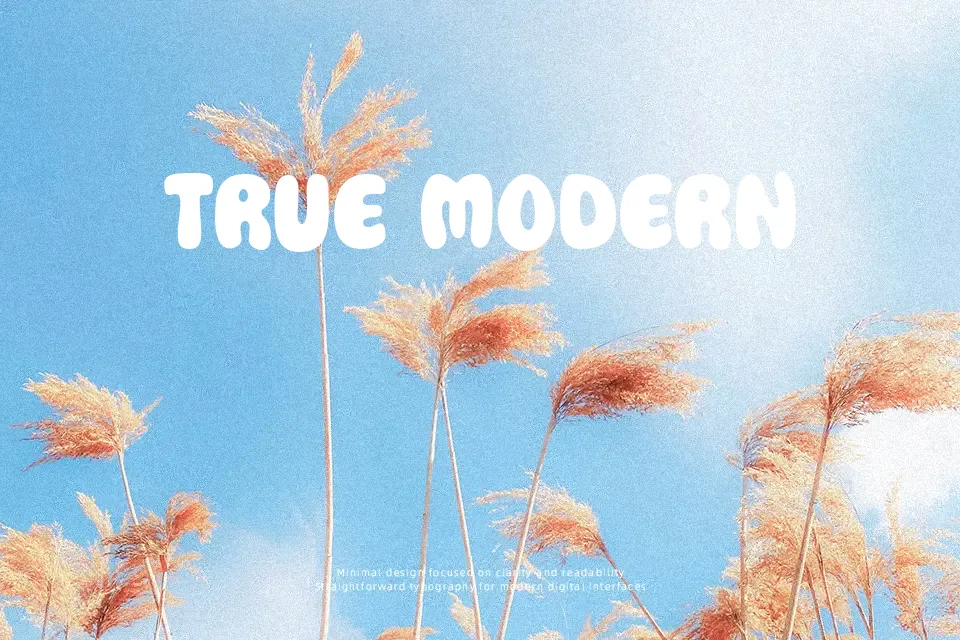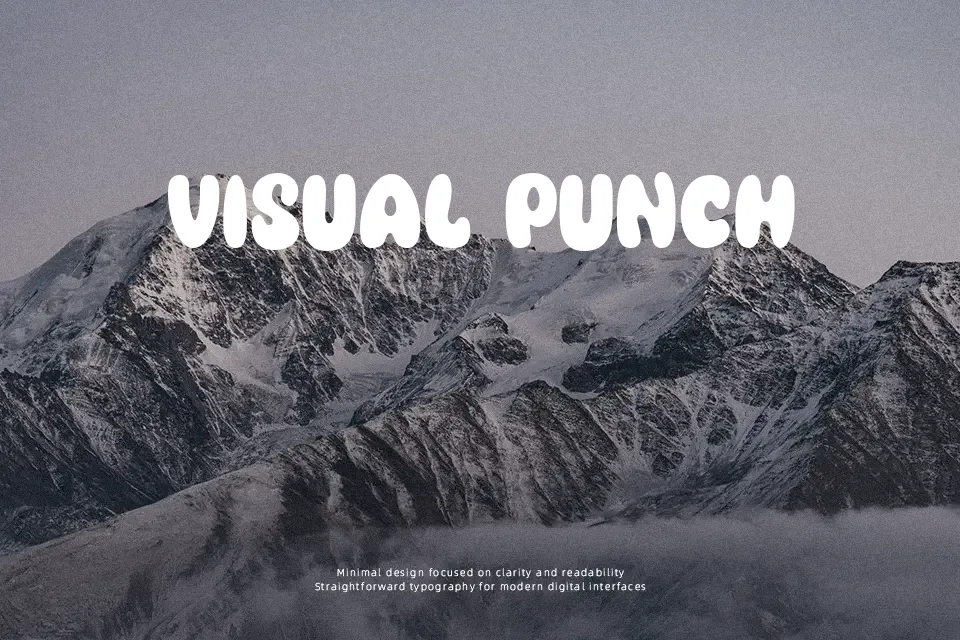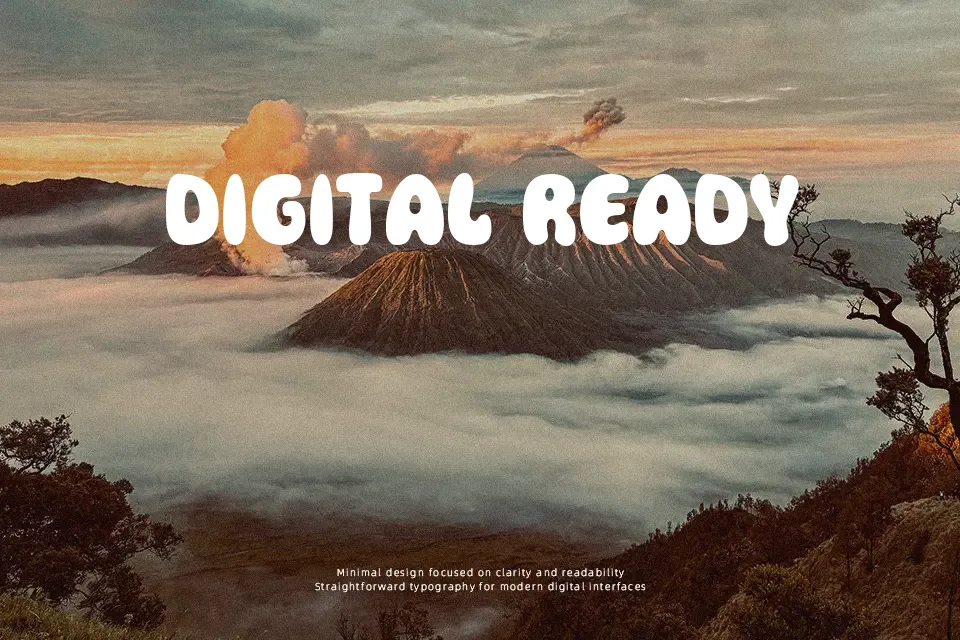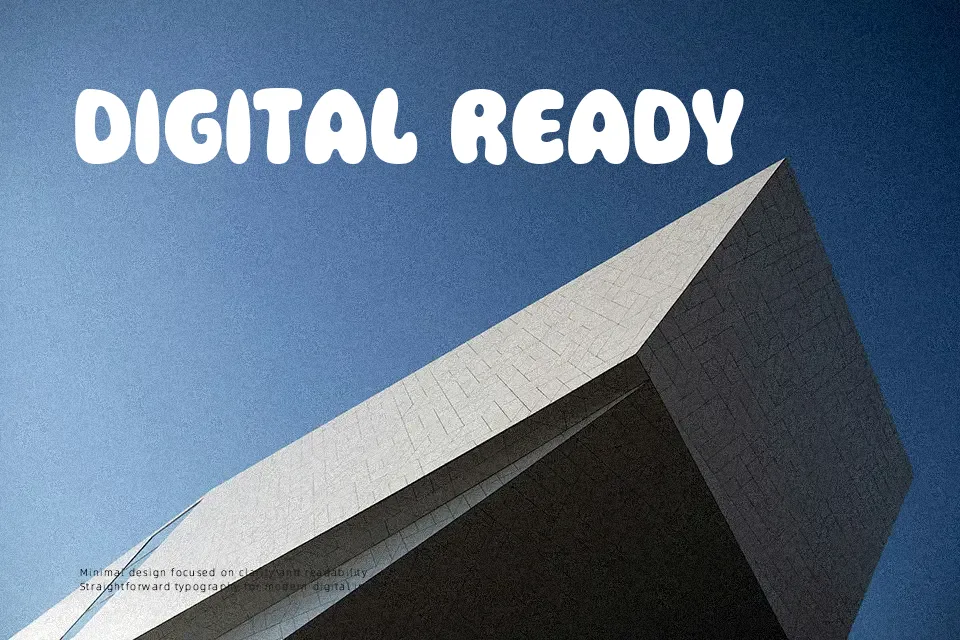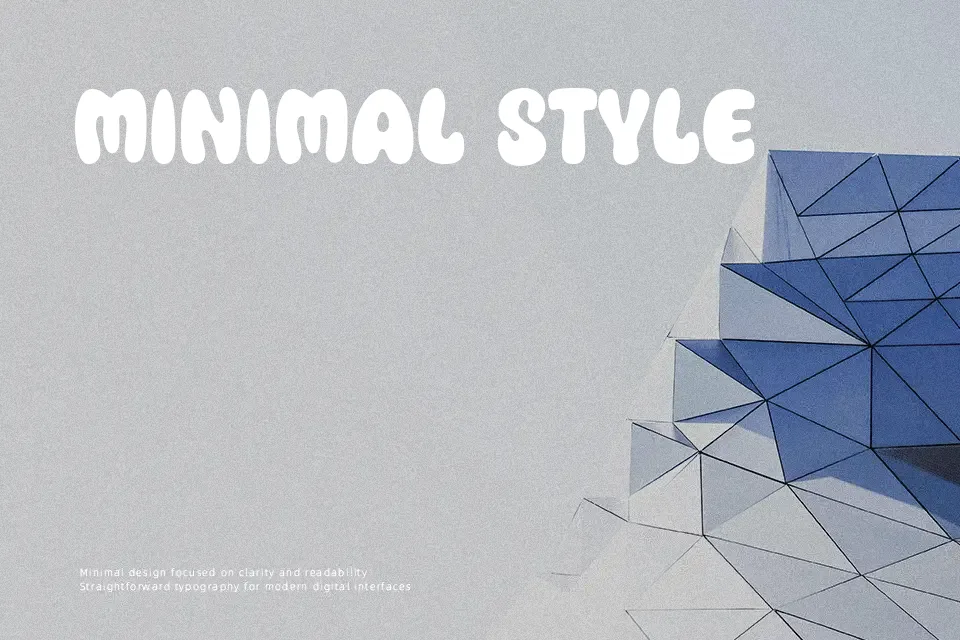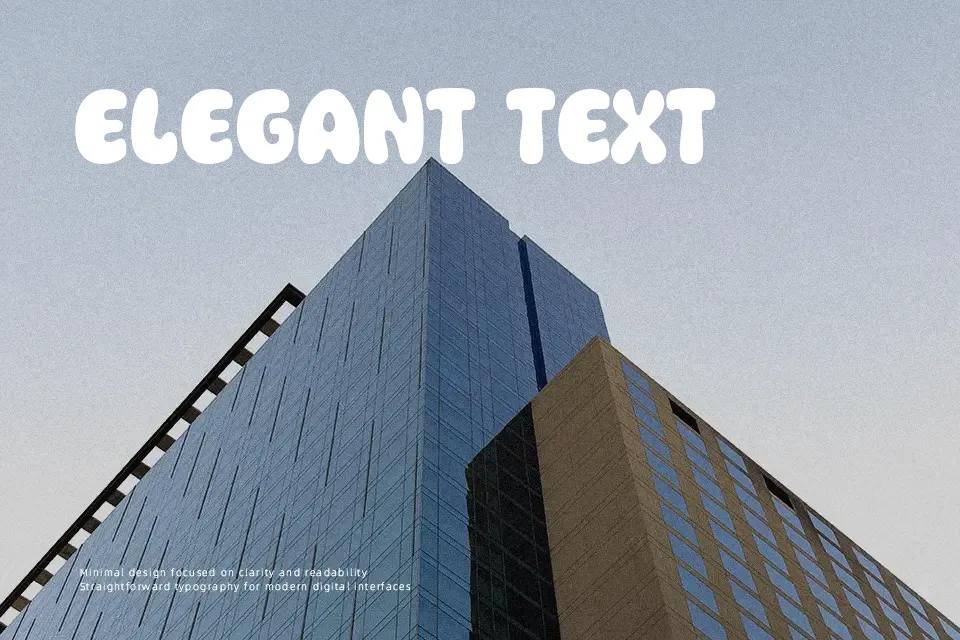
Super Story Font
Super Story Font uses plump, rounded letterforms with thick, low-contrast strokes and softly curved terminals. The characters appear compact and closely set, creating a dense, bubbly rhythm that gives short words strong visual weight. Uppercase and lowercase forms share a consistent cartoon-like construction, while the visible numerals retain the same broad, informal feel. It reads most clearly in large headlines, titles, and short labels, where the bold shapes remain easy to recognize. The tight, decorative forms become less comfortable in small captions or sustained text, so it is better treated as a display face than a reading typeface.
Best For: children’s book covers,comic-style poster headlines,playful product packaging,social media title graphics
Perfect for headline, kids, and packaging, with a bubble and cartoon style.